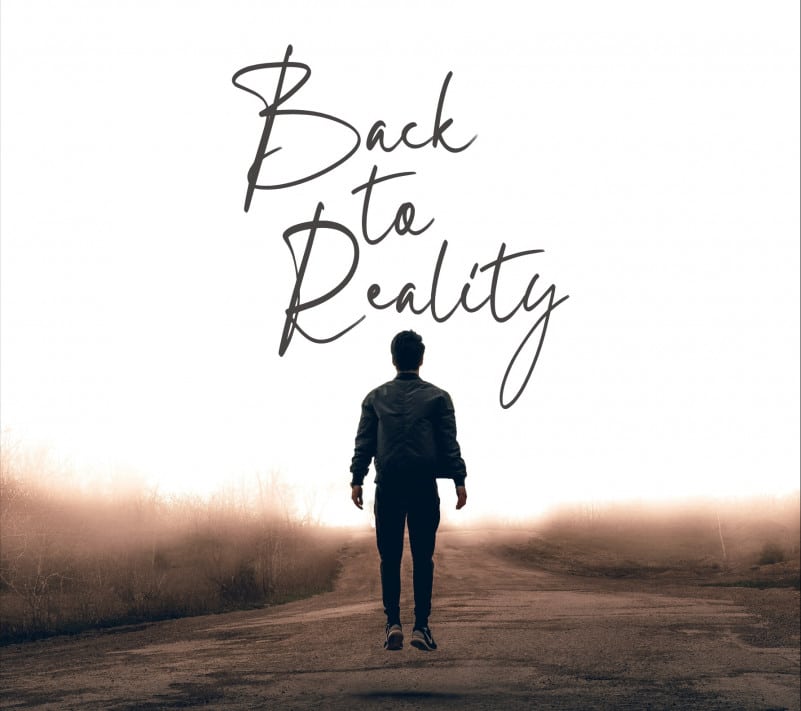
Queens Beach Signature is a handwritten signature with a stylish flow. This collection of scripts is perfect for personal branding.
Queens Beach Signature is perfect for branding projects, logo, wedding designs, social media posts, advertisements, product packaging, product designs, label, photography, watermark, invitation, stationery and any projects that need handwriting taste.